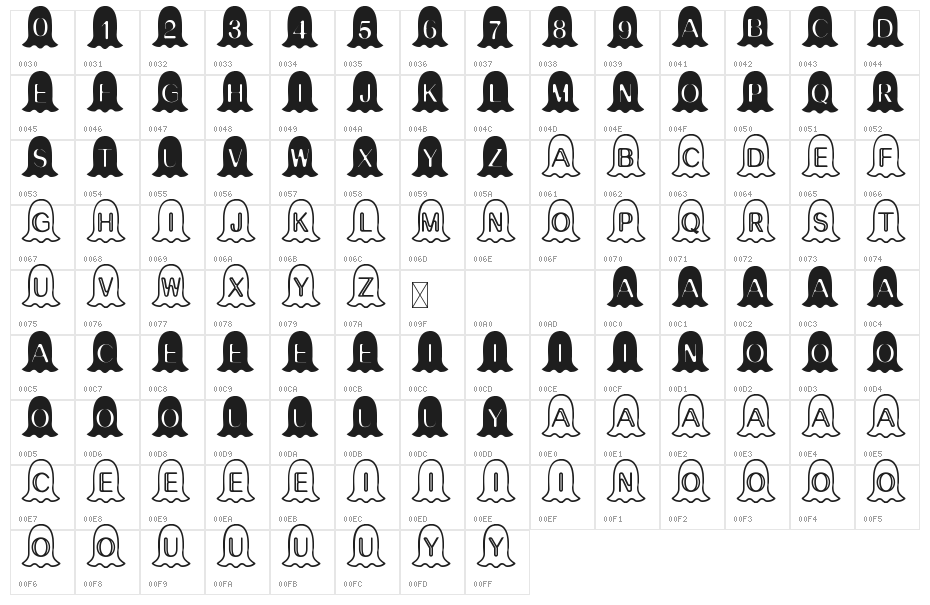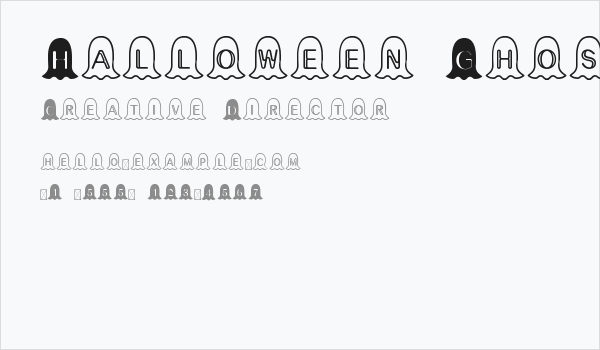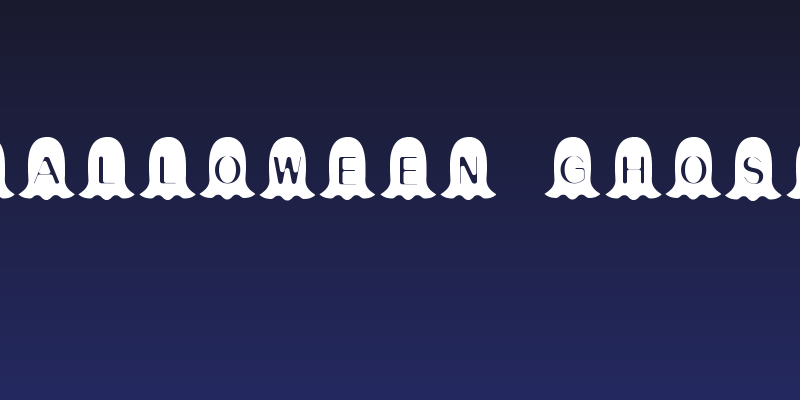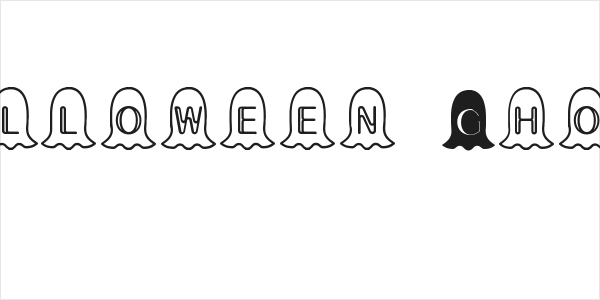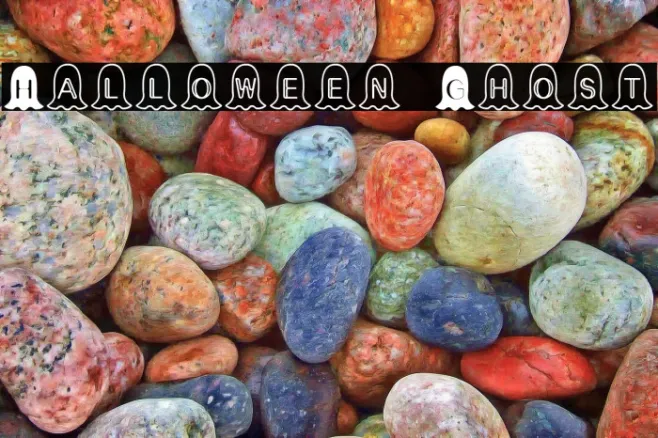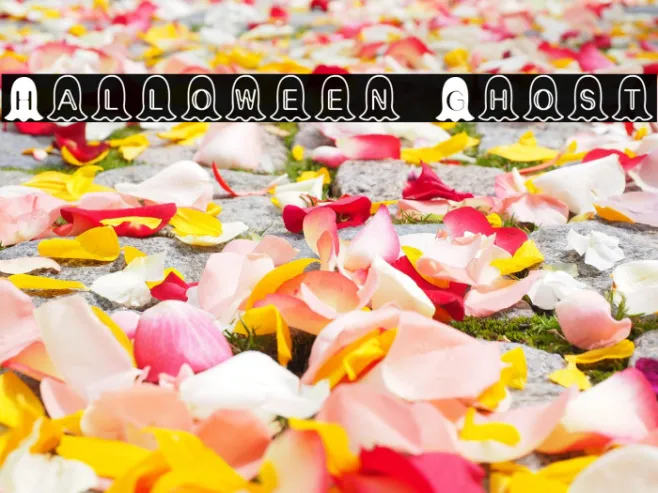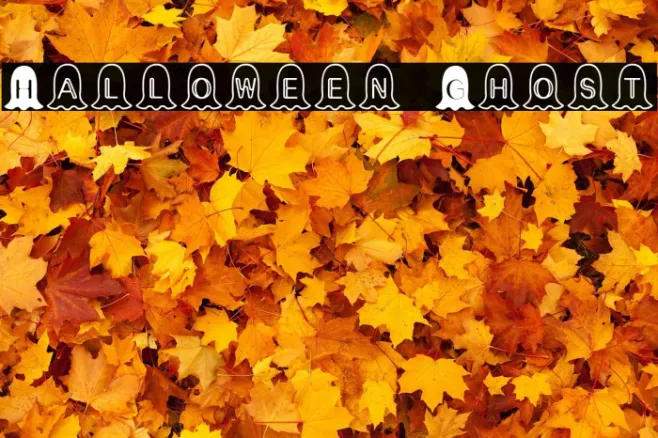
Halloween Ghost Font
Halloween Ghost Description
This playful and whimsical font features characters designed to resemble ghostly figures, making it perfect for Halloween-themed projects. Each letter and number is encased in a ghost-like silhouette, with a flowing bottom that mimics a ghost's tail. The font includes both filled and outlined versions, offering versatility in design. The bold, rounded shapes give it a friendly and approachable feel, despite the spooky theme. The font is ideal for capturing attention and adding a fun, eerie touch to any design.
| Proposed Projects | Ideal for Halloween party invitations, spooky-themed posters, children's books, and festive decorations. |